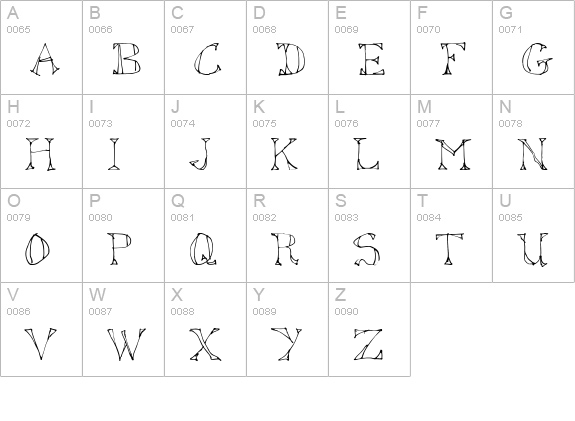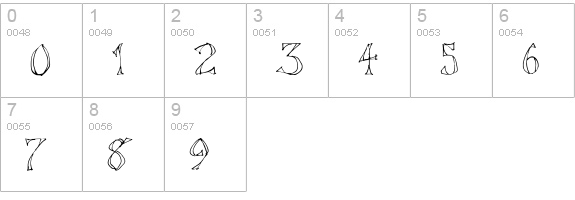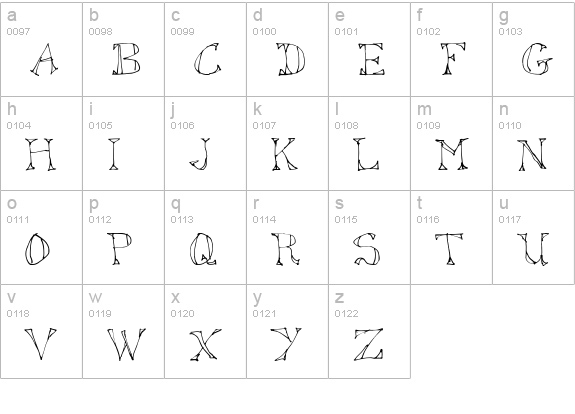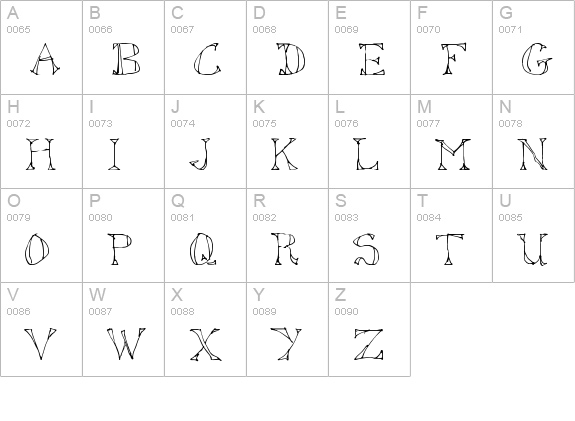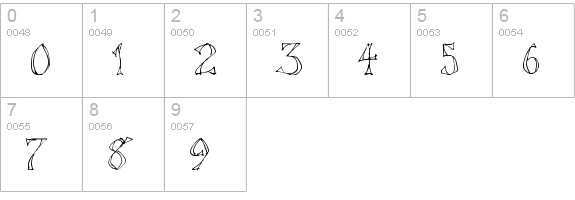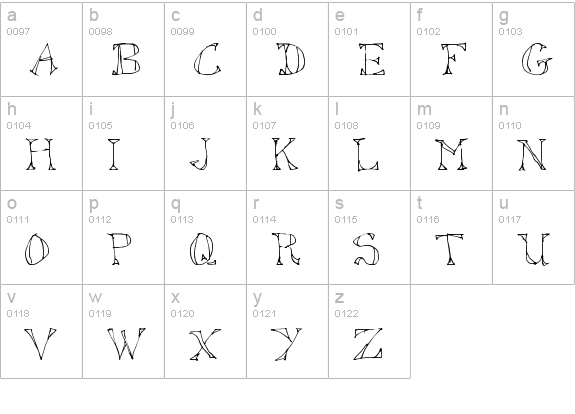
Sketched Out Font Details
Sketched Out font is a beautifully crafted typeface that exudes creativity and an artistic flair. With its hand-drawn, sketch-like appearance, this font adds a unique and personal touch to any design project. The irregular lines and imperfect shapes give the text a charming and organic feel, making it perfect for creating eye-catching headlines, logos, or any other design element that requires a touch of whimsy. What's even better is that Sketched Out font is completely free! Yes, you heard it right. This amazing font is freely available to download at FontsMarket.com, one of the leading online platforms for high-quality fonts. Whether you are a student, a professional designer, or just someone looking to add a bit of fun to your personal projects, Sketched Out font is the perfect choice. Not only does Sketched Out font offer a wide range of character variations and ligatures, but it also supports multiple languages, making it versatile and accessible to users around the world. Its clean and legible design ensures that your message will be effectively conveyed, while still maintaining that hand-drawn, artistic appeal. So why wait? Download Sketched Out font today and let your imagination run wild. Whether you're creating invitations, posters, or social media graphics, this font will surely make your designs stand out from the crowd. With Sketched Out font, the possibilities are endless, and the best part is, it won't cost you a penny. Head over to FontsMarket.com now and embark on a creative journey with this incredible free font.